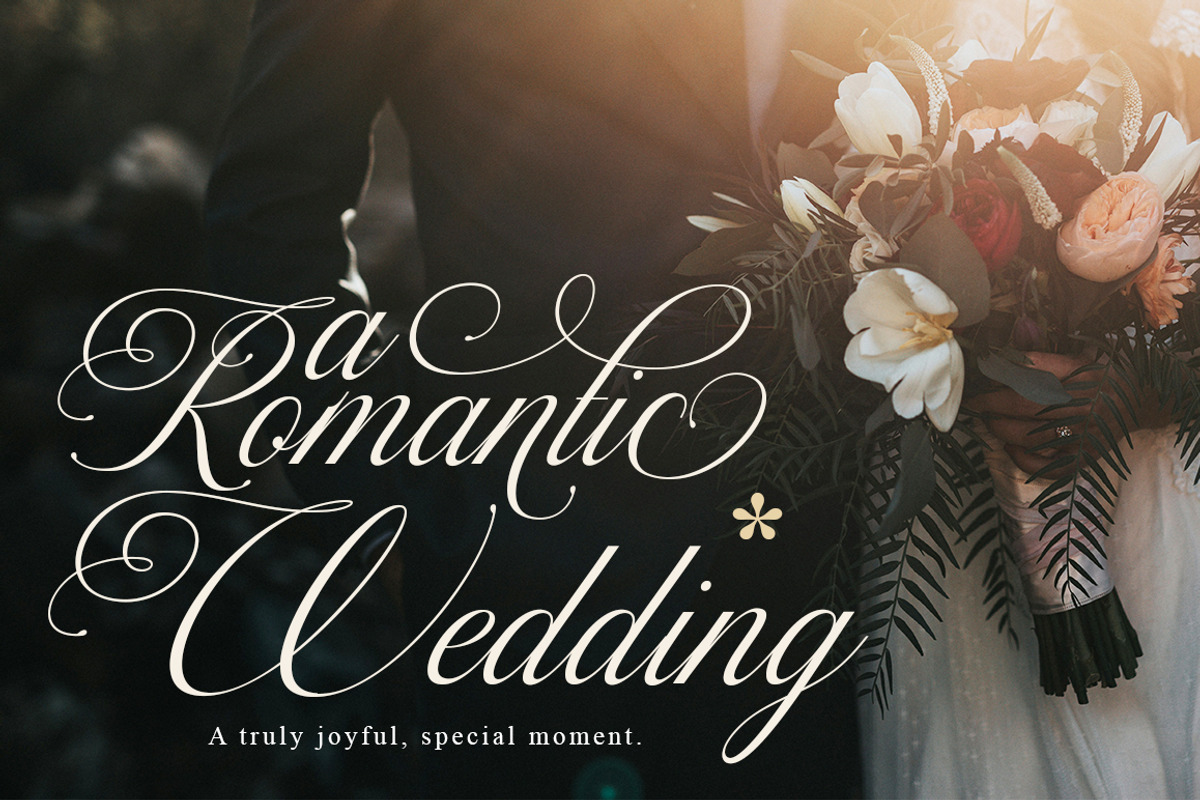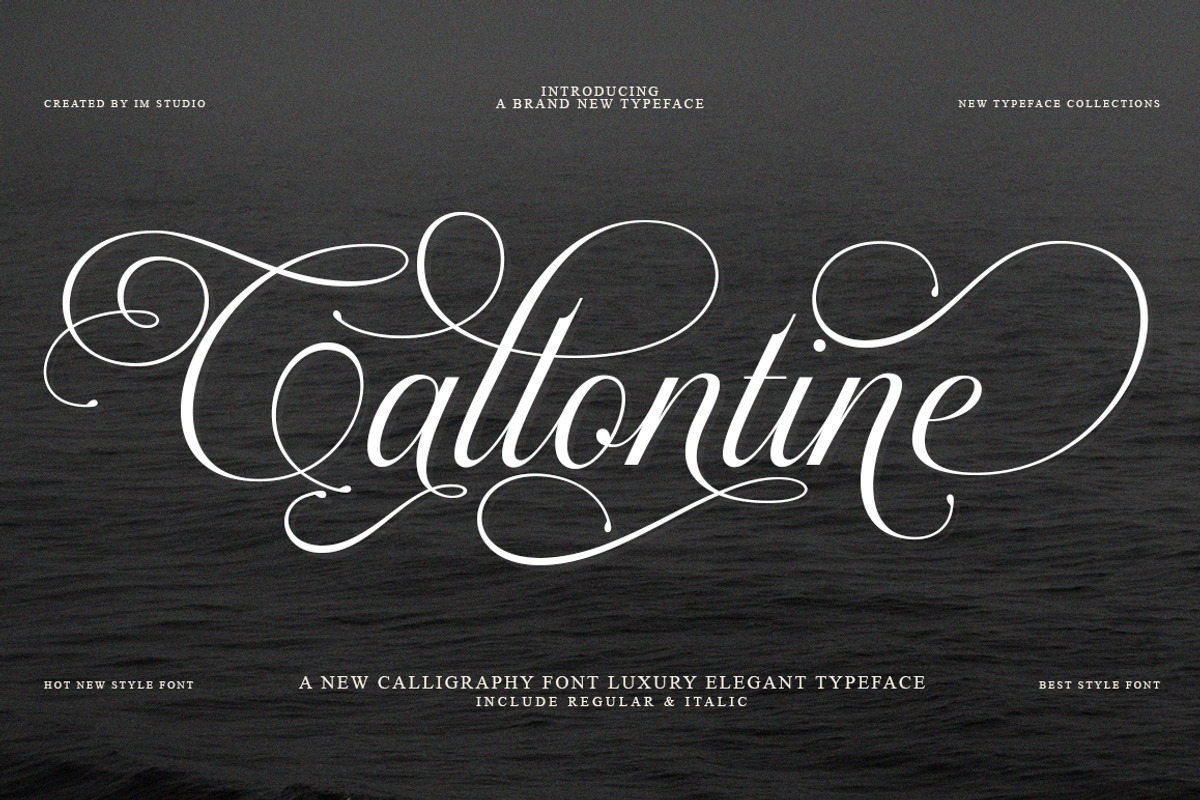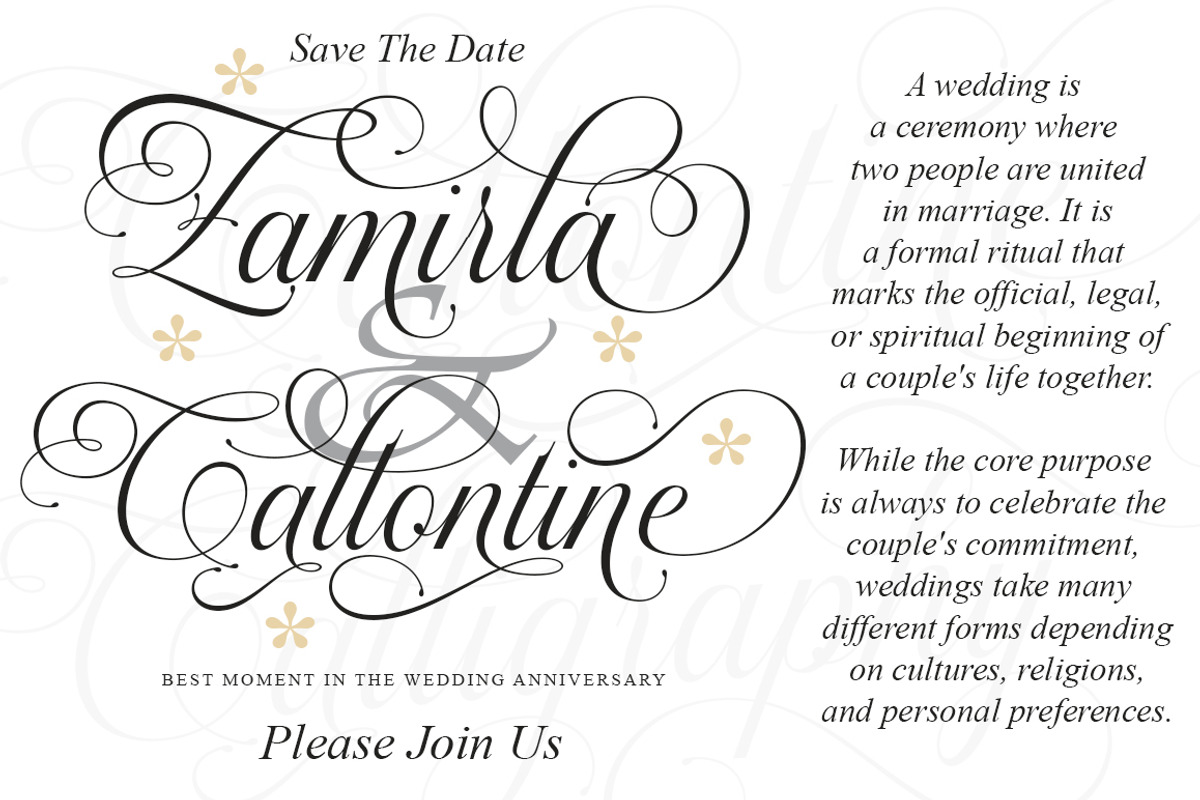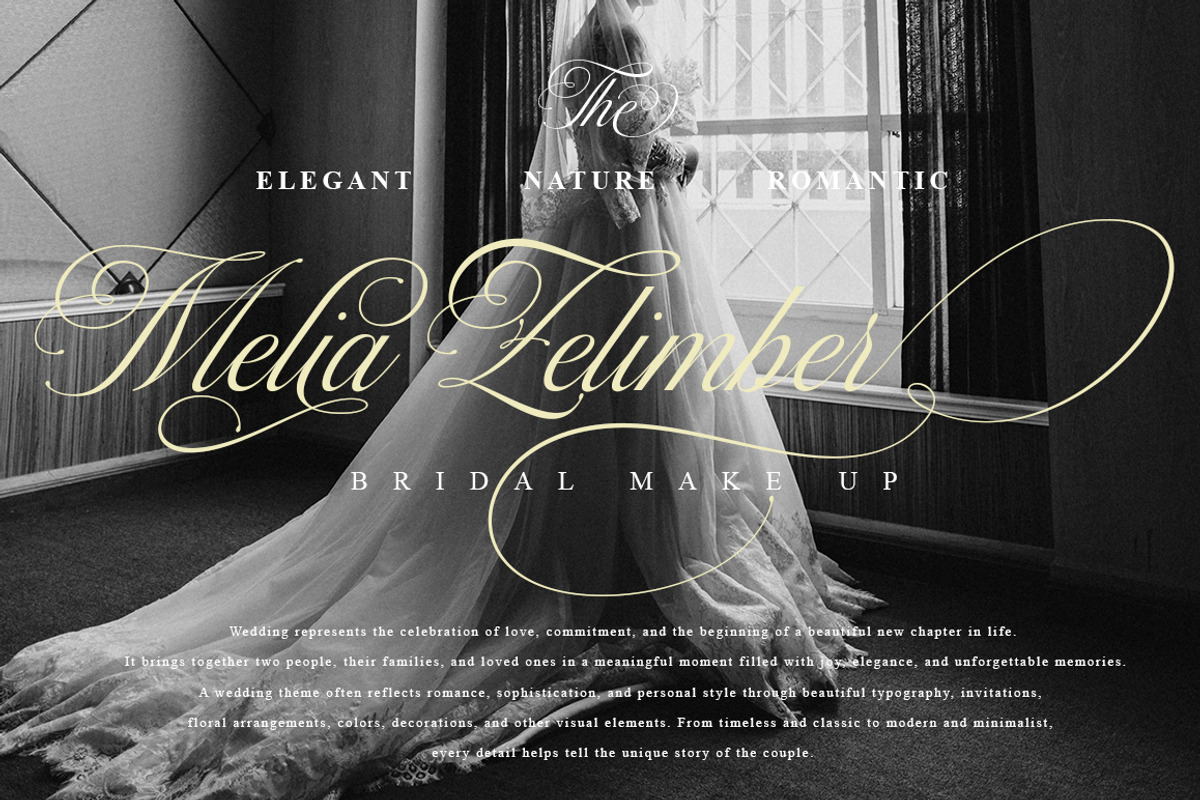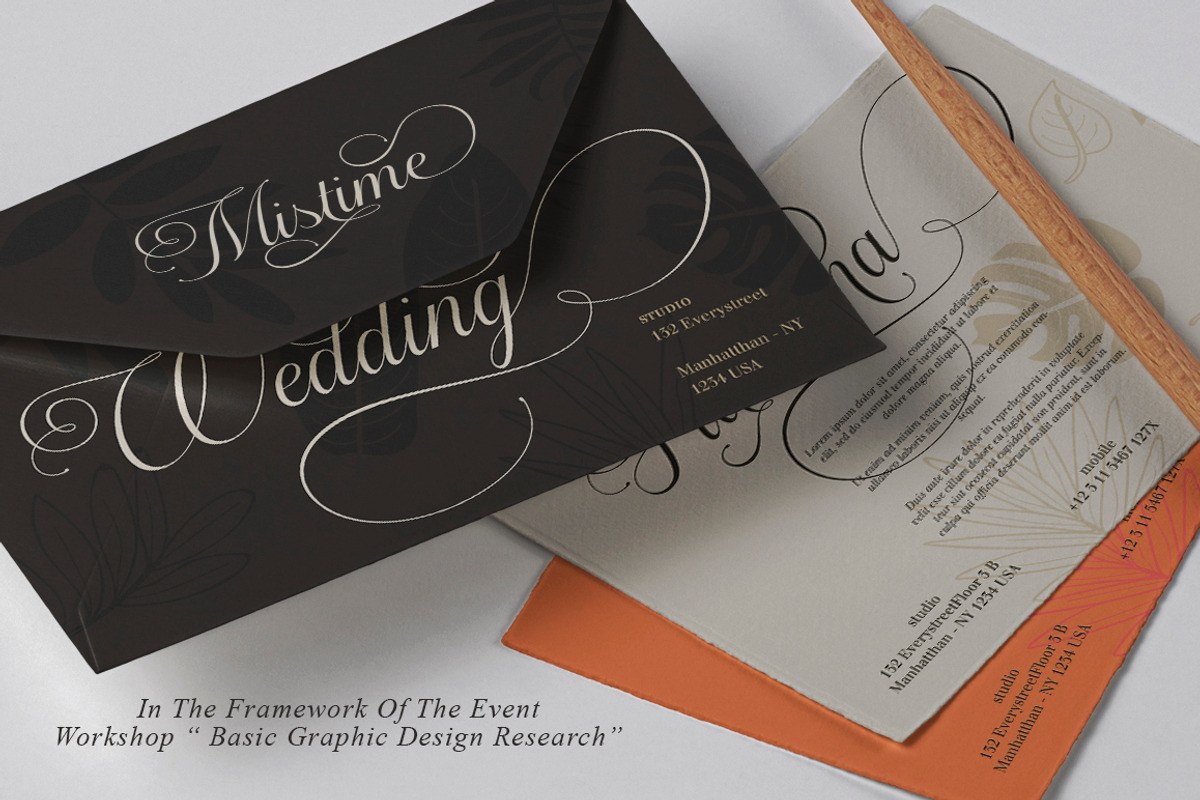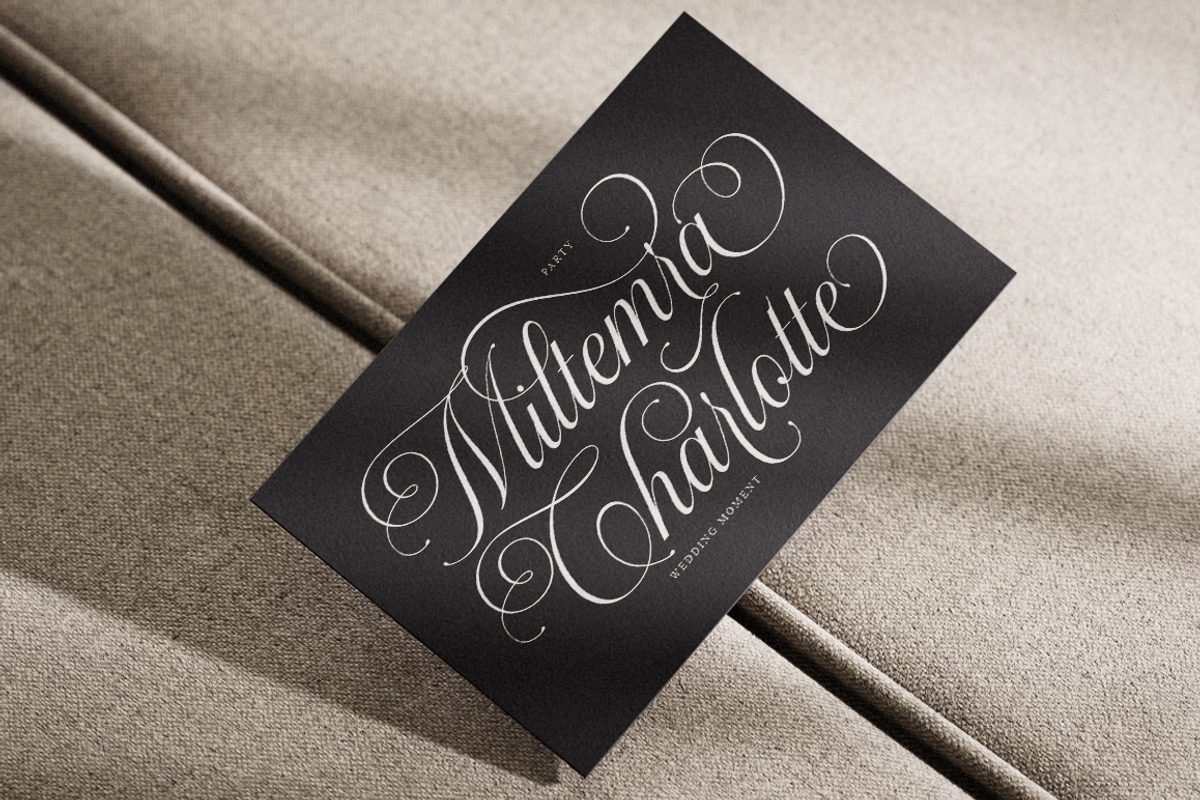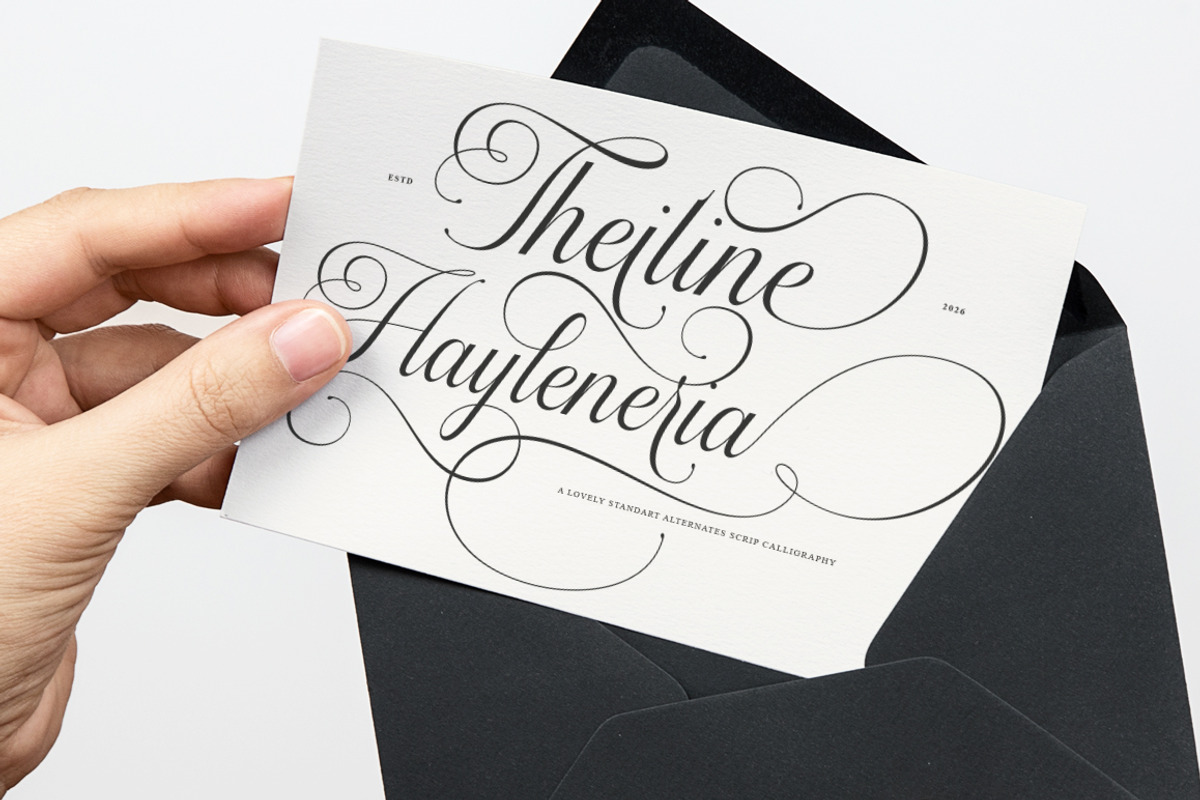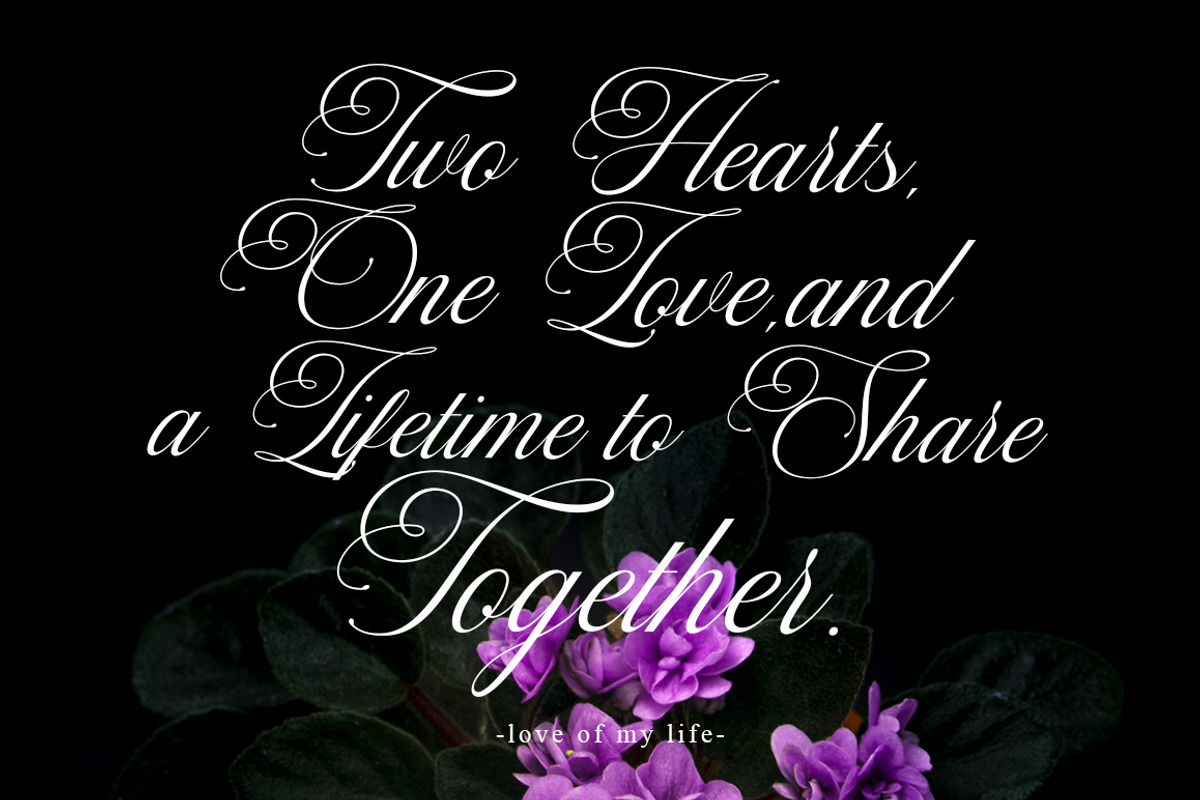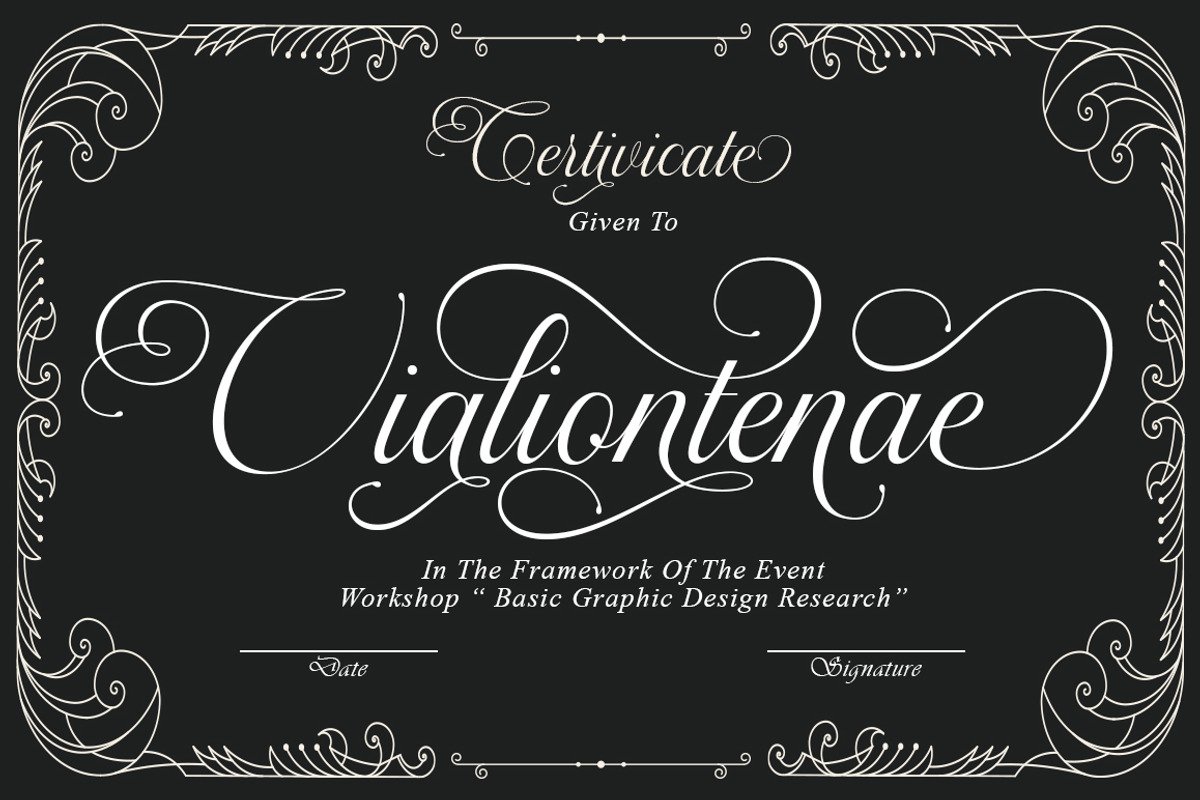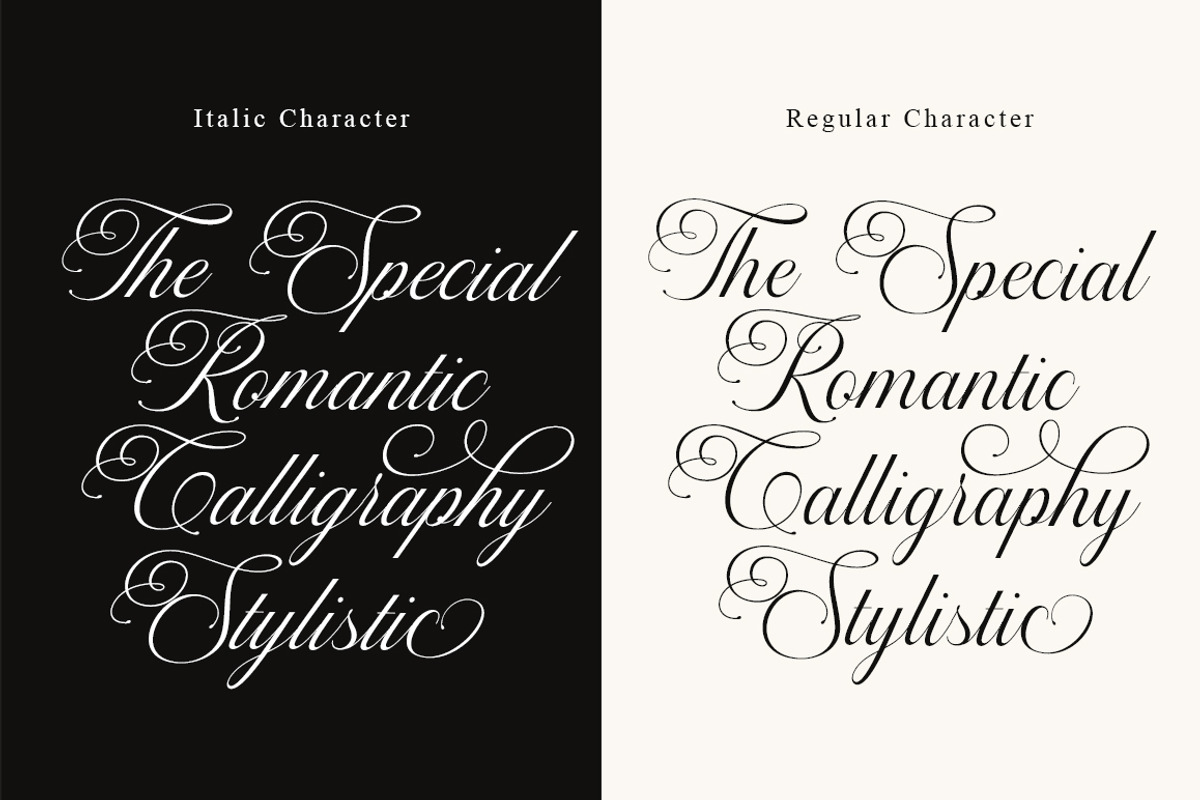
Callontine Script Pro
Callontine Pro is an elegant, decorative script font inspired by the timeless beauty of classic Copperplate calligraphy, yet refined with a modern, sophisticated touch. Crafted with meticulous attention to detail, this font blends graceful curves, fluid connections, and expressive letterforms to create a luxurious look that remains highly readable.
Designed to evoke a feminine, romantic, glamorous, and elegant feel, Callontine Pro lends a unique character to every design. Its beautiful ligatures and wide range of stylistic alternates allow you to create unique typographic compositions with a natural, handwritten feel and a high-end editorial aesthetic.
It is perfect for wedding invitations, save-the-date cards, logos, branding, fashion, beauty, stationery, greeting cards, menus, packaging, labels, editorial design, social media graphics, and luxury product advertising. Whether used for elegant headlines or sophisticated brand identities, Callontine Pro adds a graceful, memorable touch to your creative projects.